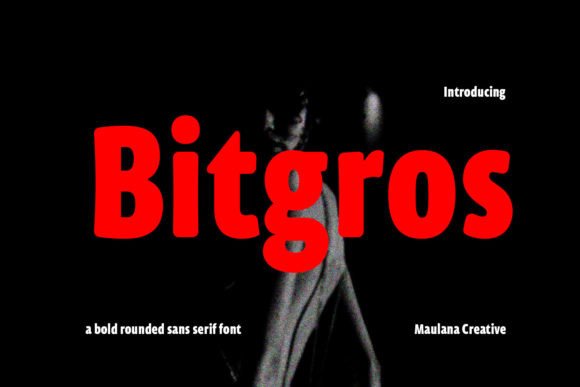
The Ultimate Guide to Bitgros Font: Elevate Your Designs with this Bold Sans Serif
I’ll never forget the time I was working on a logo design project for a trendy new coffee shop. My client wanted a bold, eye-catching font that would stand out on their signage and social media. I spent hours scouring the internet for the perfect font, but nothing seemed quite right. That was until I stumbled upon Bitgros Font. With its bold strokes and fun character, it was love at first sight! In this article, I’ll share my experience with Bitgros Font, its features, and how to make the most of it in your designs.
What is Bitgros Font?
Bitgros Font is a classic bold sans serif display font that exudes confidence and style. Its bold strokes and fun character make it perfect for a variety of design projects, from logo design to social media graphics, movie titles, and book titles. What sets Bitgros apart is its unique blend of modernity and playfulness, making it an excellent choice for designers looking to add a touch of personality to their work.
My Honest Review of Bitgros Font
• Bold and eye-catching: Bitgros Font is perfect for making a statement in your designs.
• Versatile: It can be used for a wide range of projects, from short text to long text letters.
• Pairs well with script or serif fonts: Bitgros Font makes an excellent secondary font to complement your primary font.
• Ligatures and alternates: The font comes with a range of ligatures and alternates to add an extra layer of creativity to your designs.
While Bitgros Font is an excellent choice for many design projects, there are a few things to keep in mind:
• ⚠️ May not be suitable for body text: Due to its bold nature, Bitgros Font may not be the best choice for lengthy paragraphs of text.
• 🤔 Limited use of OpenType features: While the font does come with ligatures and alternates, it may not have the full range of OpenType features that some designers require.
The Backstory of Bitgros Font:
The story of Bitgros Font begins with a young designer named Alex, who was frustrated with the lack of bold and playful fonts available for designers. Alex spent countless hours experimenting with different font styles and eventually created Bitgros Font, which quickly gained popularity among designers. Today, Bitgros Font is a beloved font among designers and crafters, known for its unique blend of modernity and playfulness.
Frequently Asked Questions:
Q: Is Bitgros Font suitable for body text?
A: While Bitgros Font is an excellent choice for headlines and titles, it may not be the best choice for lengthy paragraphs of text due to its bold nature.
Q: Does Bitgros Font come with ligatures and alternates?
A: Yes, Bitgros Font comes with a range of ligatures and alternates to add an extra layer of creativity to your designs.
Q: Is Bitgros Font easy to read?
A: Yes, Bitgros Font is a clear and legible font that’s perfect for headlines and titles. However, its bold nature may make it less suitable for body text.